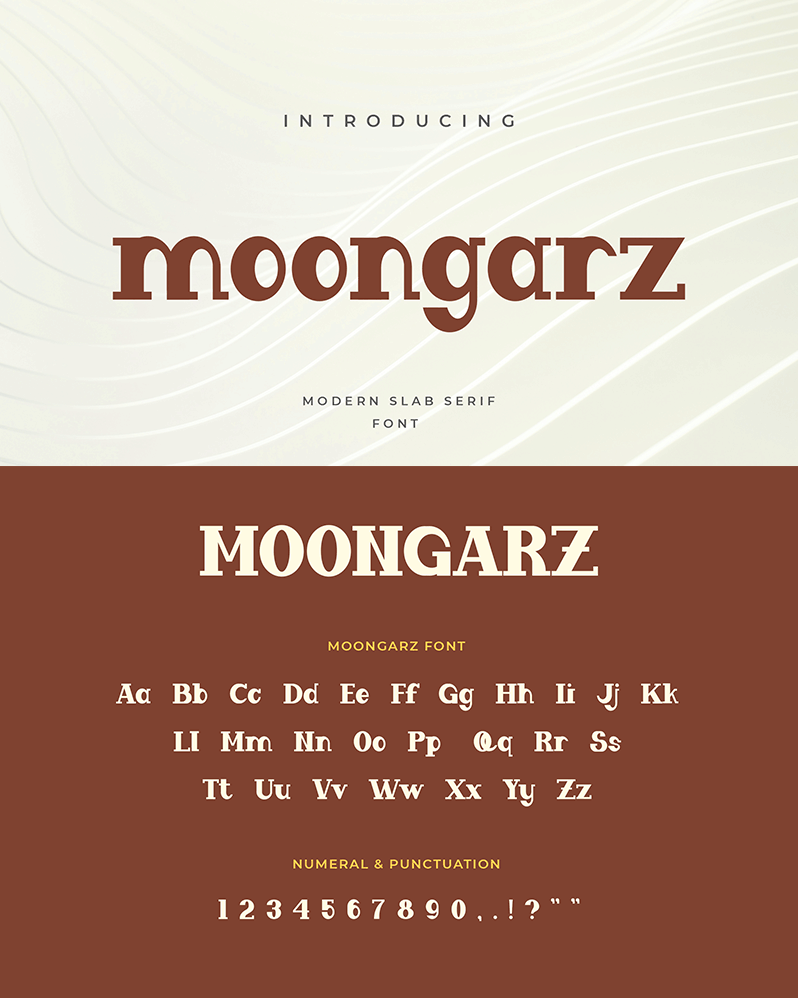
Moongraz Sans Serif is a font design that improves balance, and elegance that reflects contemporary style. included in the sans serif family that prioritizes the effect of firmness and scale between balanced and neat fonts, suitable for various projects and brands that want to prioritize trust and dominance, such as community labels, fashion, vintages, retro, hoodies, merchandise, advertisements, etc. You can buy full license from our store for more our fonts: https://uicreative.net/products/fonts-moongraz-sans-serif |